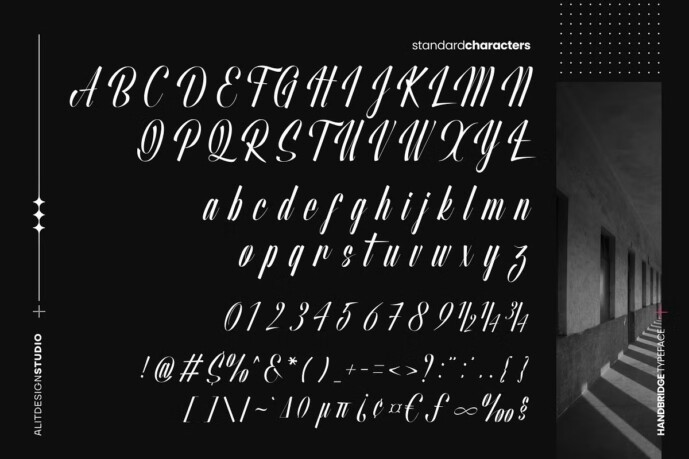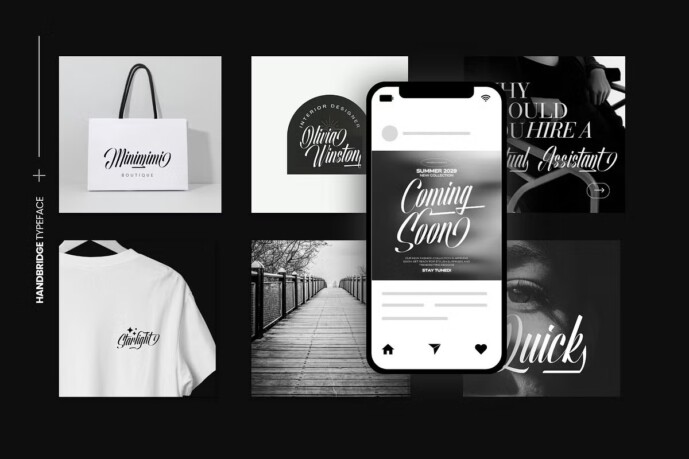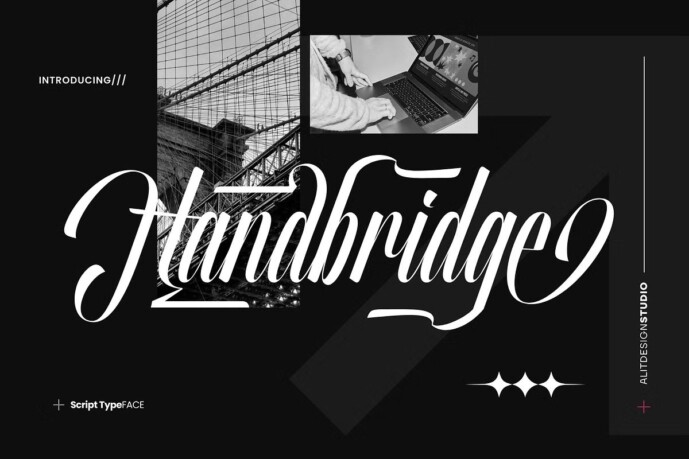
Handbridge Font
Designer: alit design
Handbridge Font, a dynamic and fierce script that takes your design projects to new heights. This font is crafted for those who seek speed, fluidity, and a touch of elegance in their typography.